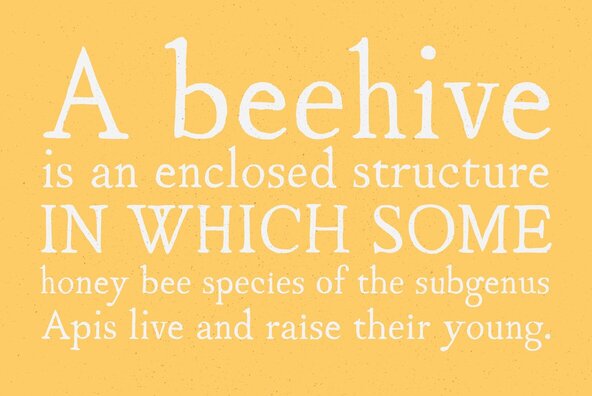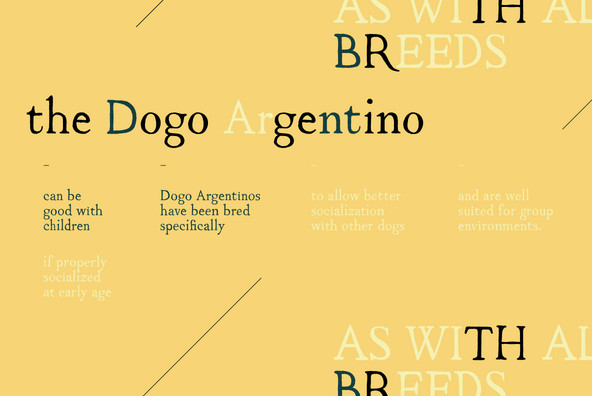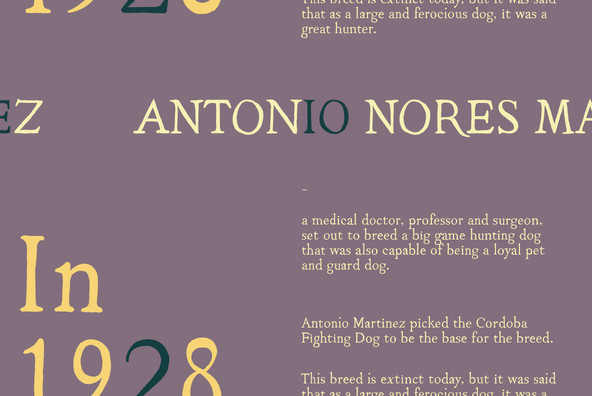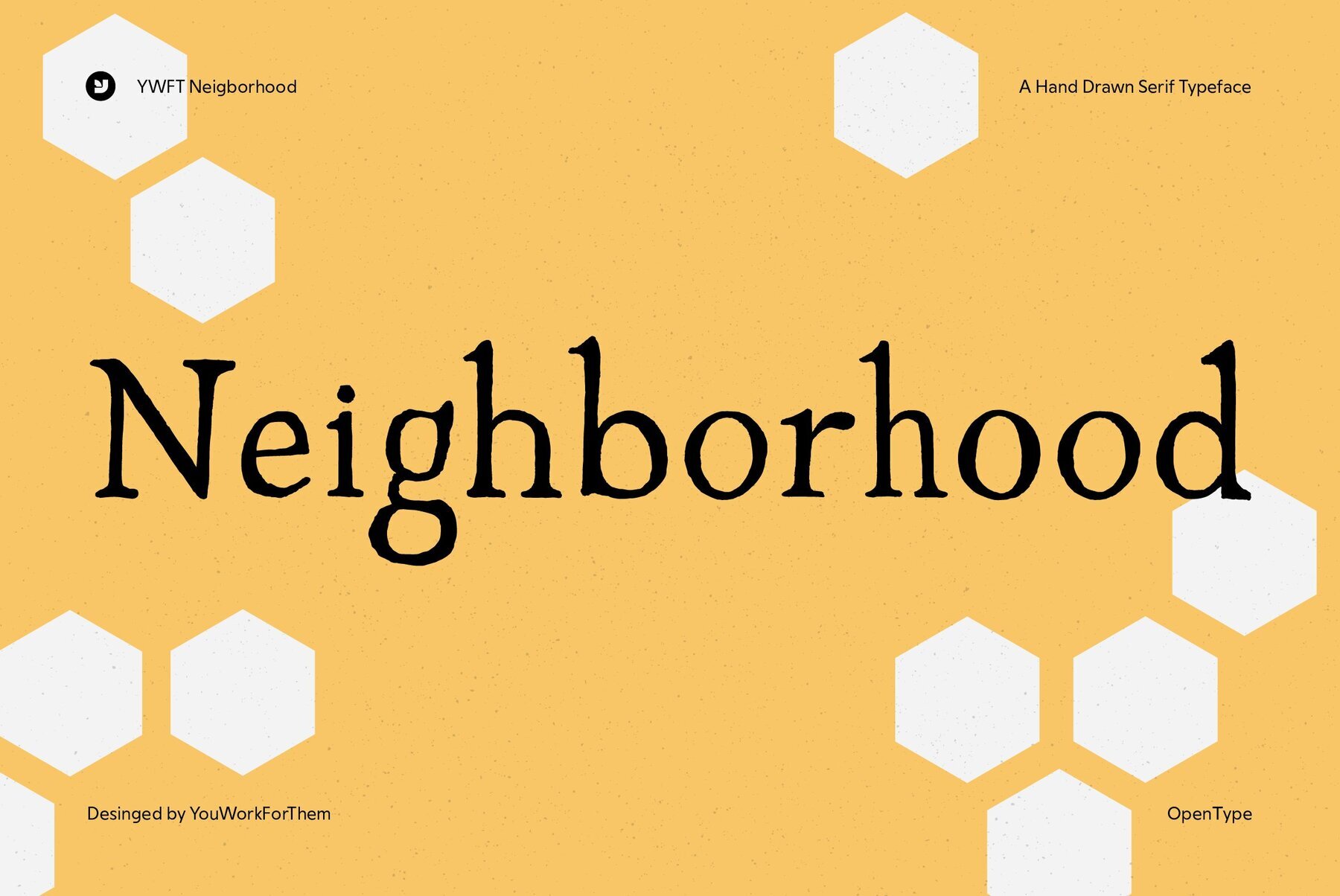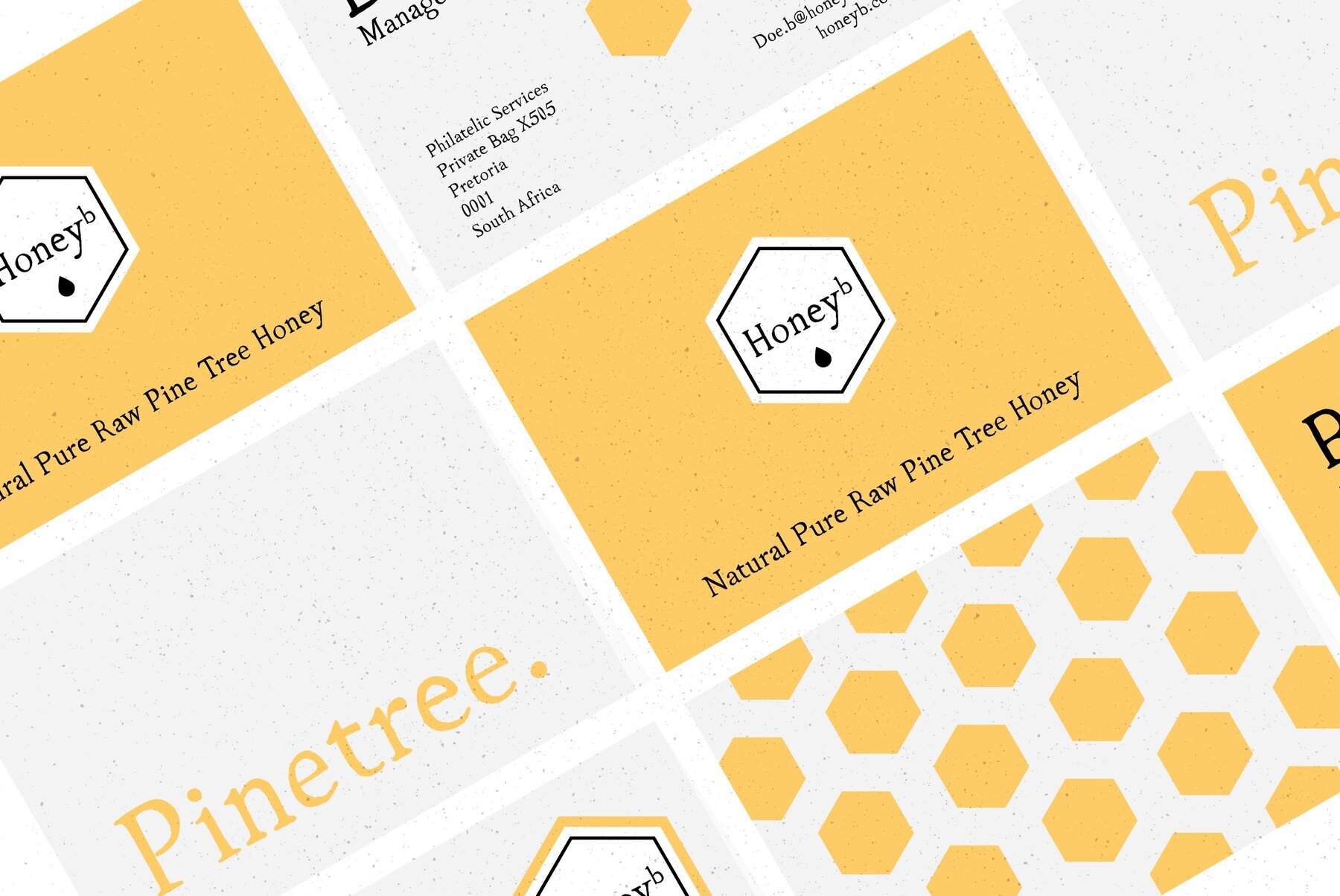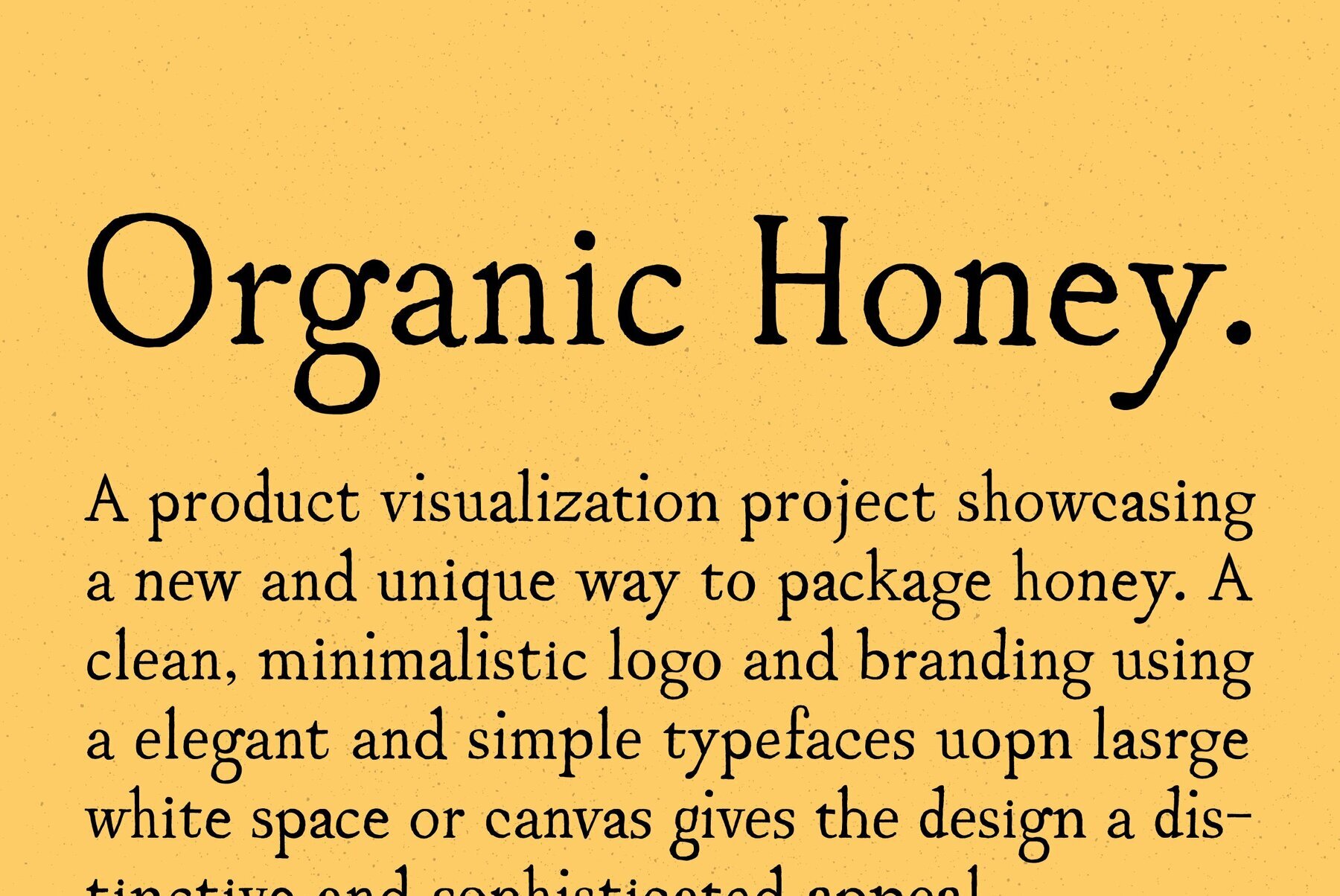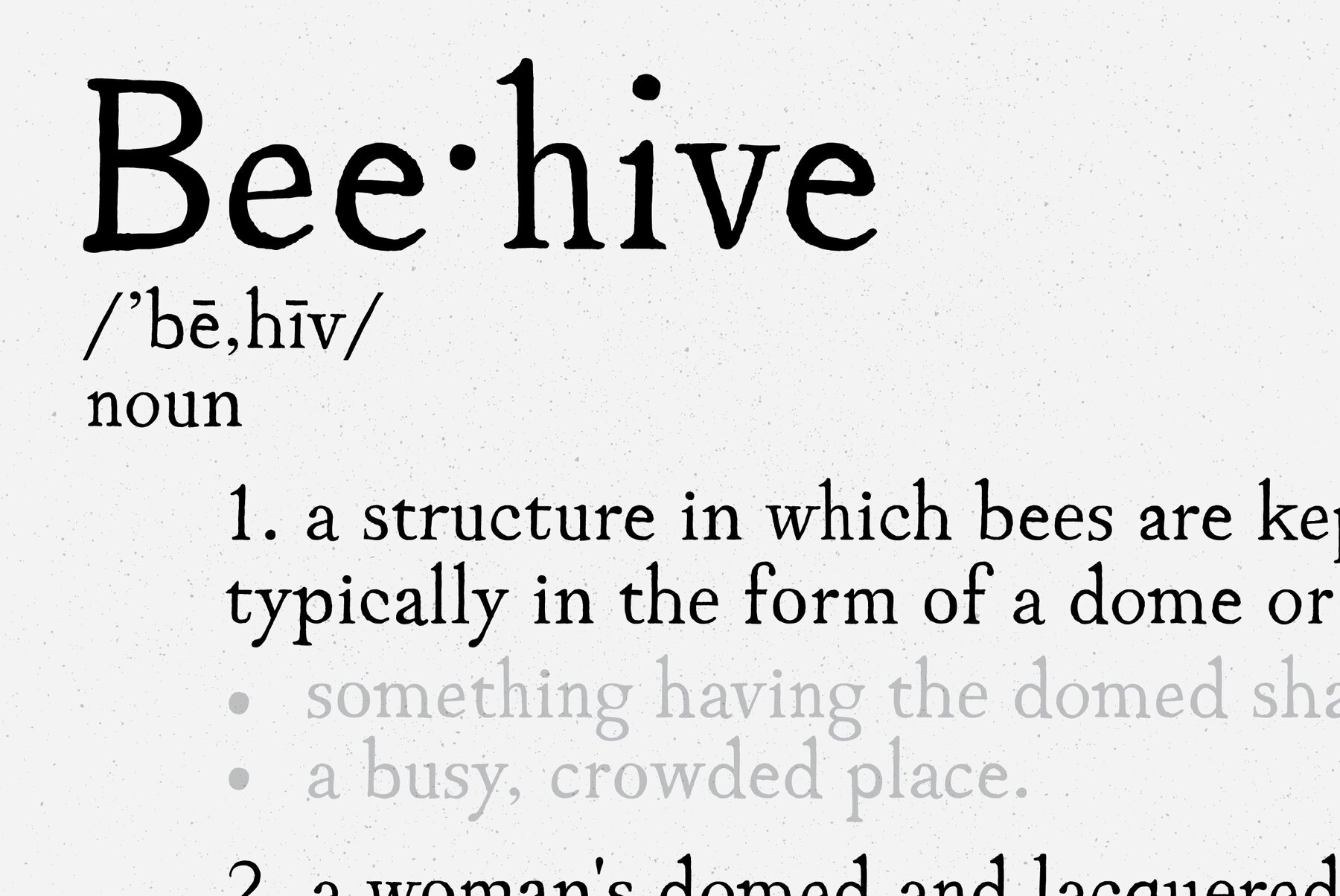
YWFT Neighborhood
Foundry: Travis Stearns for YouWorkForThem
YWFT Neighborhood is an typeface created by the integration and reinterpretation of 4 families of serifs into one community, one neighborhood, one font. It was originally hand drawn in 2008 by YouWorkForThem, then digitized into opentype format. YWFT Neighborhood contains a very unique, friendly and organic style, and contains Basic Latin, Latin-1 and extended glyph support.